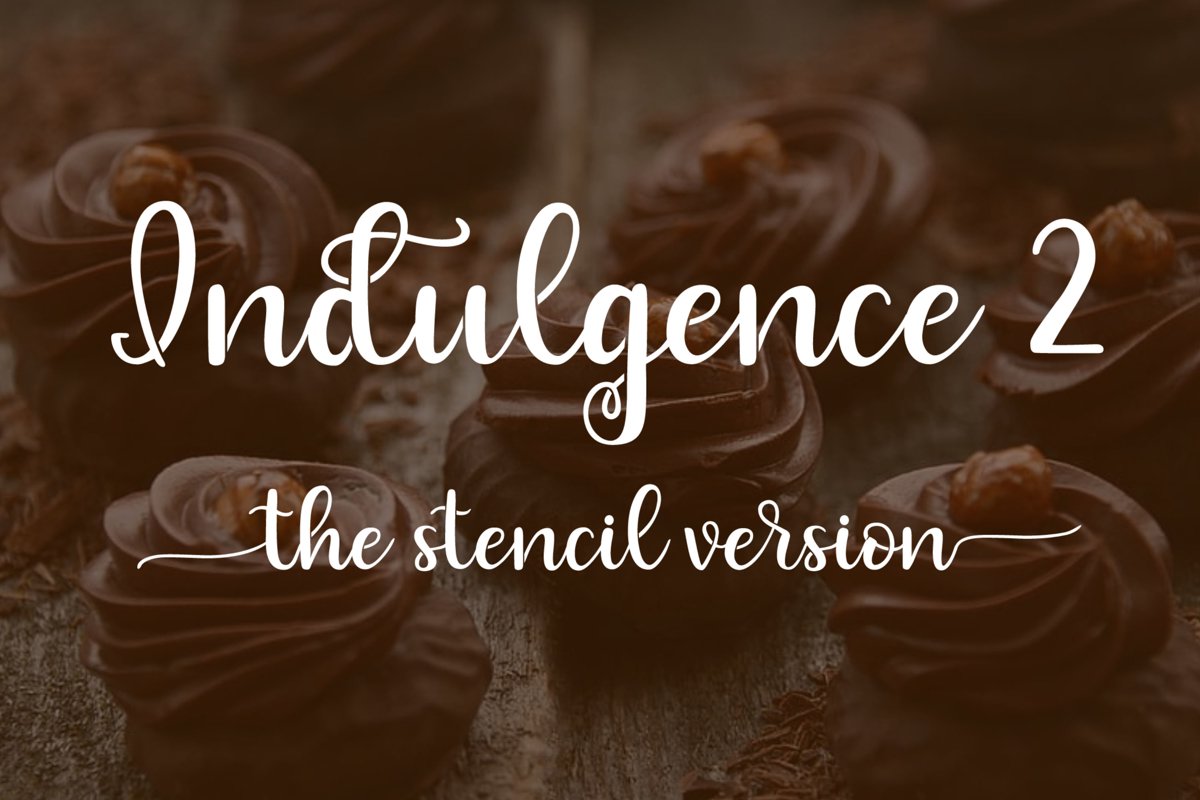
Indulgence 2 - The Stencil Version | Stencil Font
I took one of my top selling fonts and turned it into a stencil font!!! Indulgence 2 is a handlettered script font made up of capital letters A-Z, lowercase letters a-z, alternates, ligatures, numbers 0-9 and punctuation. Indulgence 2 has all open counters which means there are no closed shapes. It's perfect for stencil and vinyl projects.
Update: 2 versions now included!!!! The original version of this font will cut better on larger projects such as frames, signs, and doormats The smaller the text, the more difficult it will be to keep the pieces together without tearing the paper or vinyl. I have now added a wider gap version that will suit your smaller projects better. Use this version for cards and smaller projects.
Beginning swashes are stored as alternates for capital letters and end swashes are stored as alternates for lowercase letters. If you do not have a program that shows you these alternate choices, you can find these and all of the other alternates and ligature combinations in the character map on your computer.